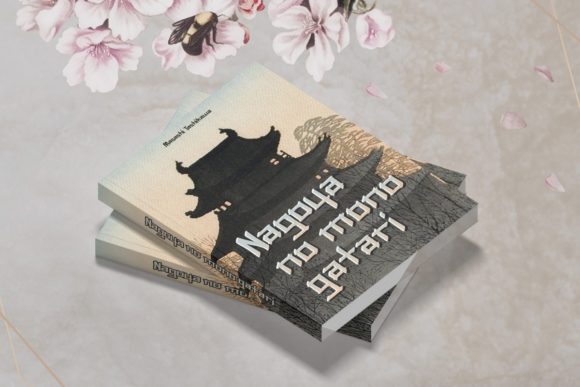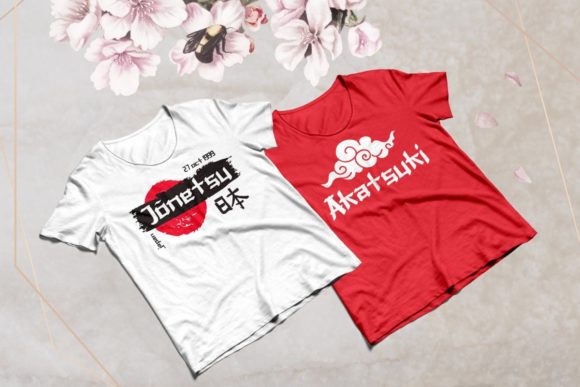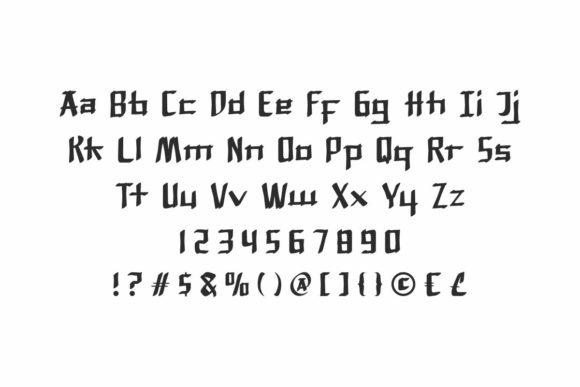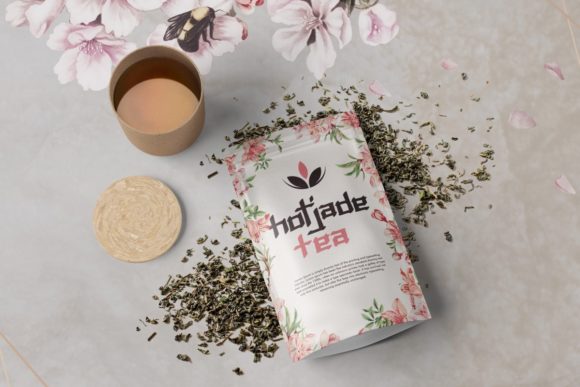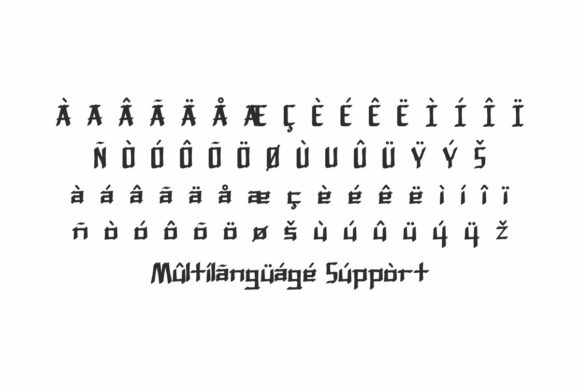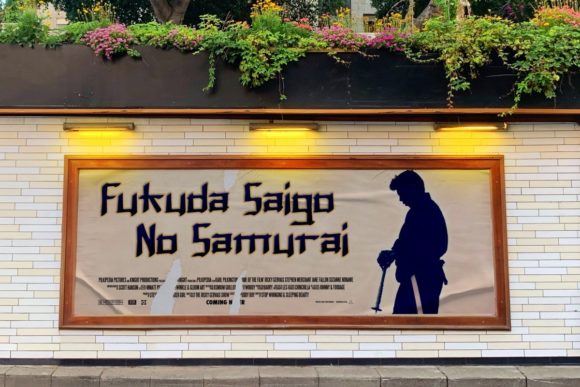
Introduction to Nichibotsu Font
Imagine yourself in the midst of a creative project, and you’re struggling to find the perfect font to bring your vision to life. You’ve scrolled through countless design resources, but nothing seems to capture the essence of your idea. This is where the Nichibotsu Font comes in – a cool and bold Japanese styled display font that can elevate your design to the next level.
With its PUA encoded glyphs and swashes, accessing the full range of this font is a breeze. Whether you’re working on a digital project with a transparent background or creating a print design, the Nichibotsu Font is sure to make a statement. And the best part? It’s available for free download, making it an invaluable resource for designers of all levels.
- Unique and Creative Design: Nichibotsu Font offers a distinctive and artistic style, making it an ideal design resource for creative projects.
Honest Review: Nichibotsu Font
As a designer, I’m always on the lookout for high-quality design resources to elevate my creative projects. Recently, I came across the Nichibotsu Font, which caught my attention with its unique and intricate designs. Here’s my honest review of this font.
- The Nichibotsu Font offers a wide range of styles and variations, making it perfect for designers who want to add some flair to their projects.
- The font may not be suitable for large-scale text, as the intricate details can make it difficult to read.
- The number of styles and variations, while initially appealing, can also be overwhelming for designers who prefer a more straightforward design process.
Overall, the Nichibotsu Font is a high-quality design resource that can add a unique touch to creative projects. While it has its limitations, it’s a great option for designers who want to experiment with different styles and designs. With its free download and transparent background feature, it’s definitely worth checking out.
Use Nichibotsu Font as a design resource for creative projects that require a unique and high-quality font. Experiment with different text settings and background options to achieve the desired look.
Nichibotsu Font is ideal for use in logo design, branding, and advertising materials. It’s also a great choice for creative projects that require a bold and eye-catching font.